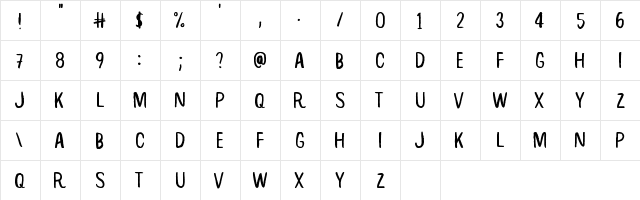
Root Beer Regular
| Designer | Zaffar Ansari |
Design Context for Root Beer Typeface
Root Beer is a composed and adaptable typeface that performs quietly and consistently across a wide range of design contexts.